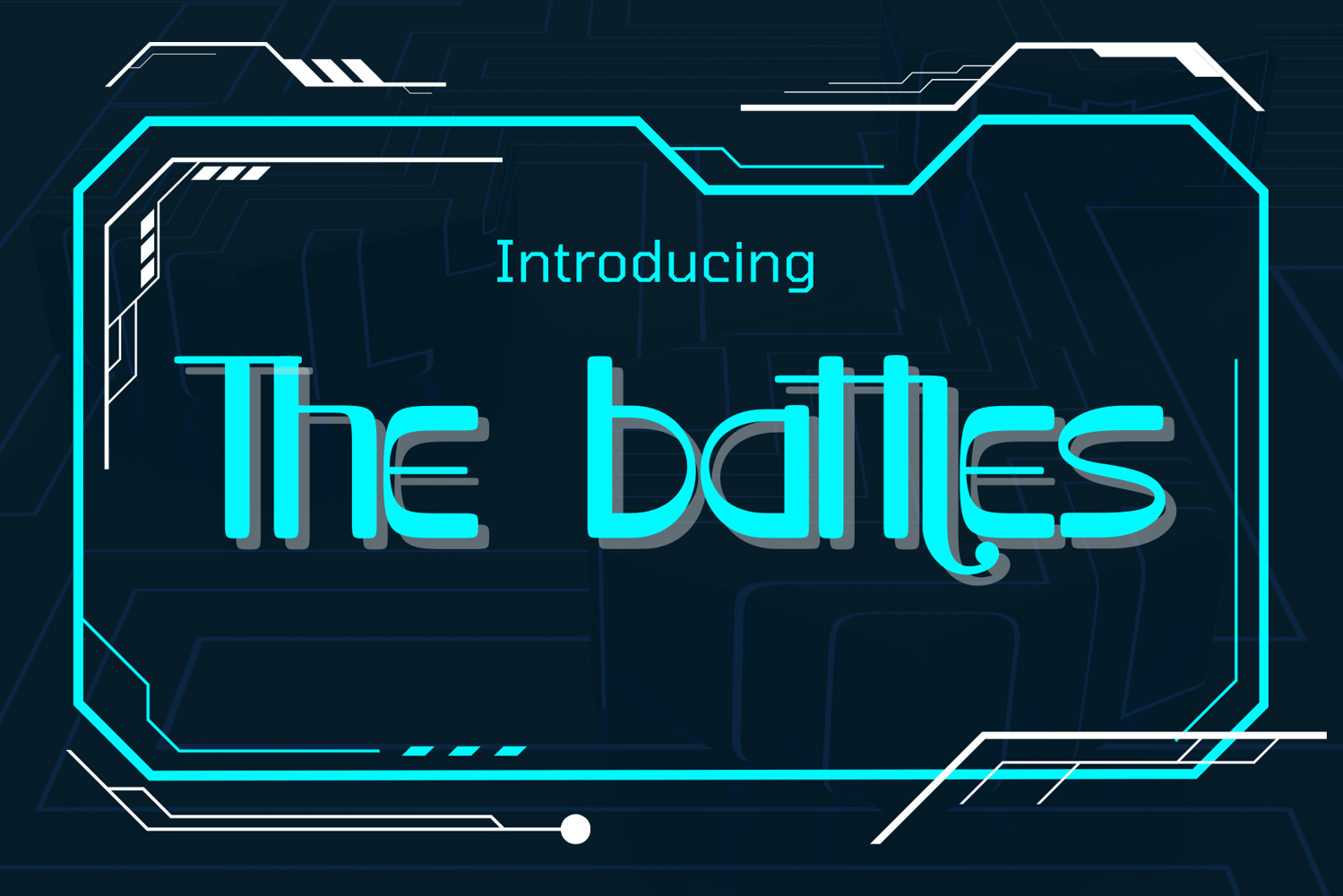
The battles
The Battles is a bold modern display font with a strong value and unique character details. Designed with thick strokes, rounded edges, and distinctive letterforms, this typeface delivers a confident yet playful impression. The stylish curves and unexpected shapes make it stand out effortlessly in any design project.